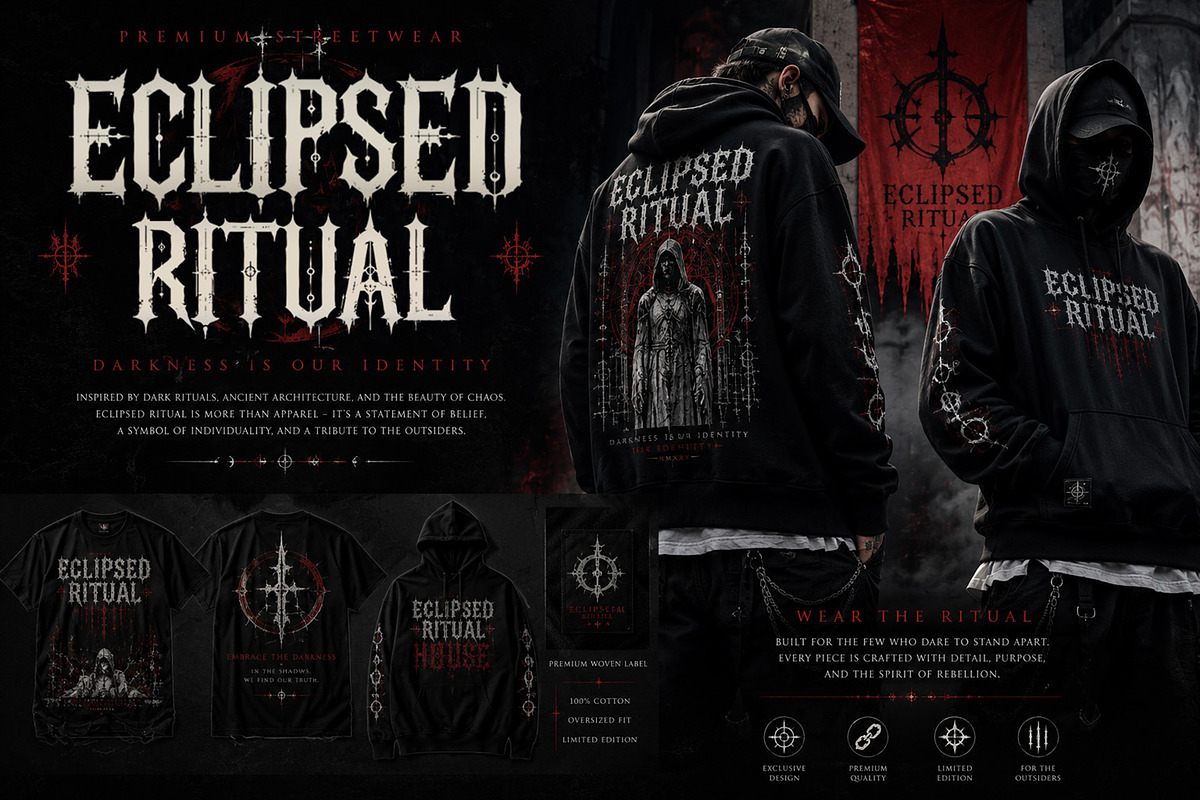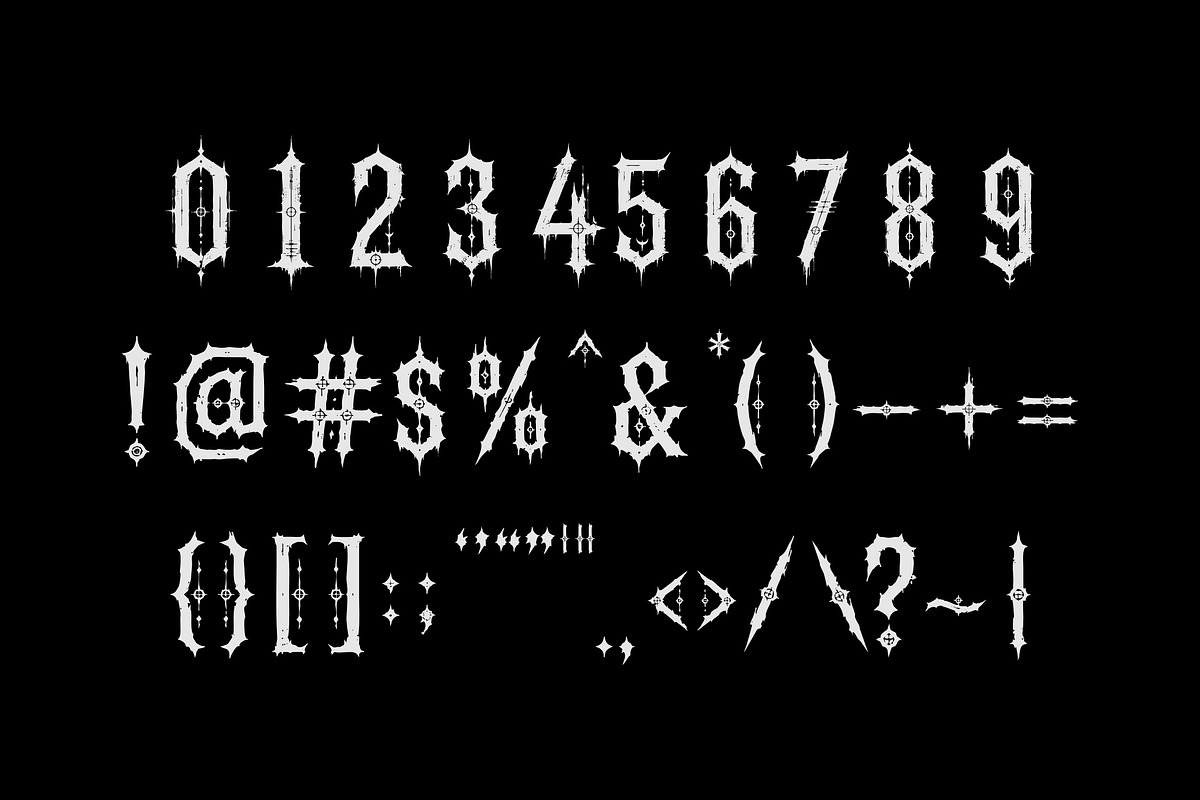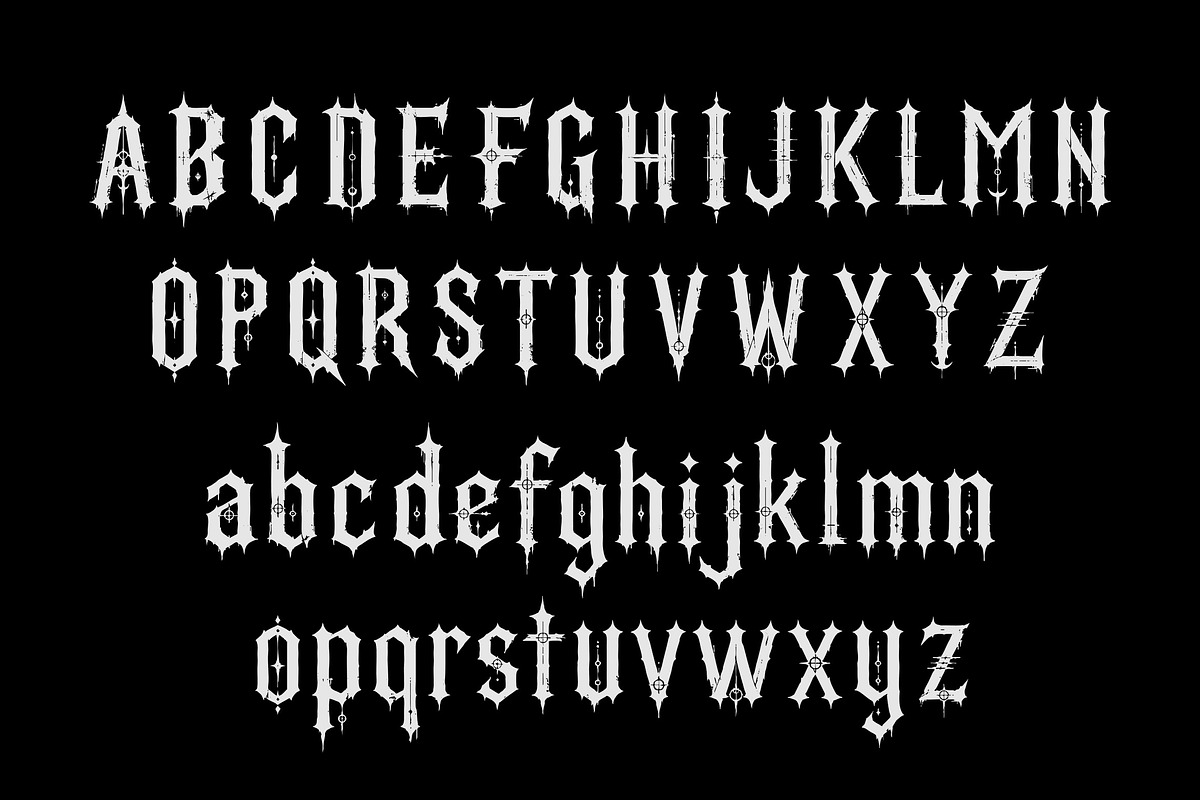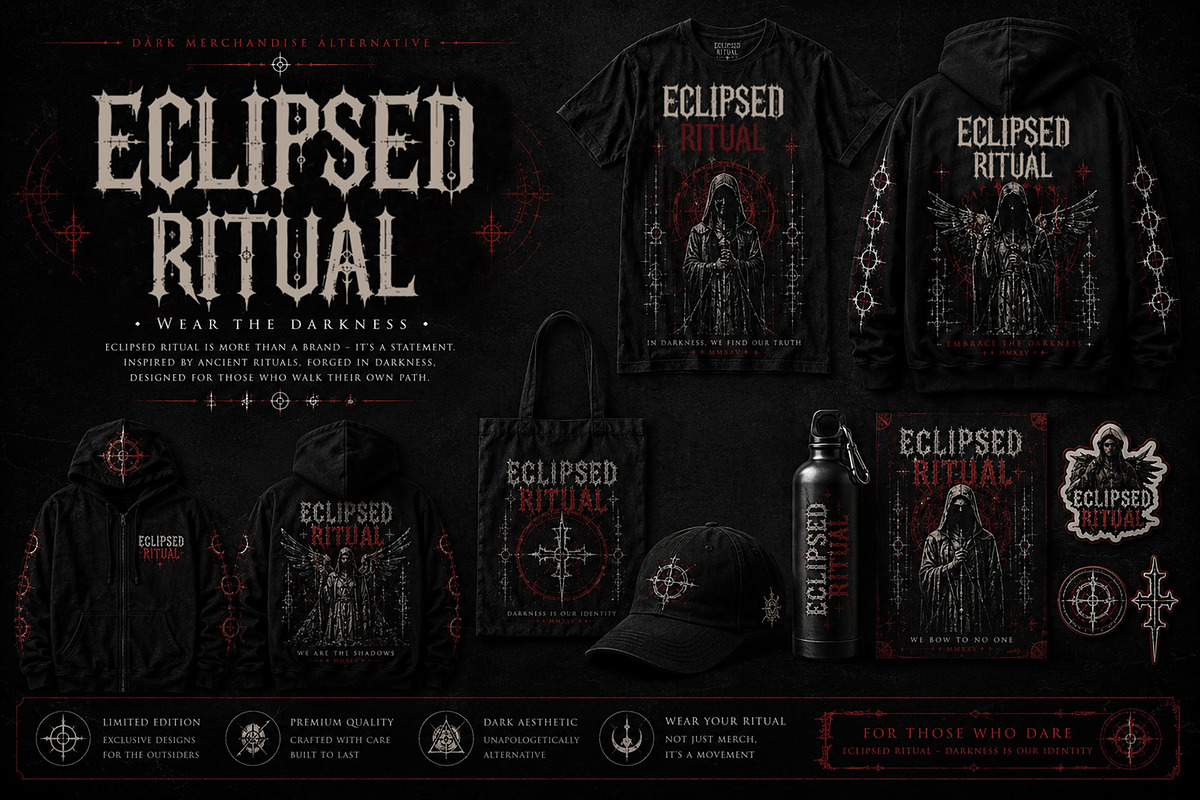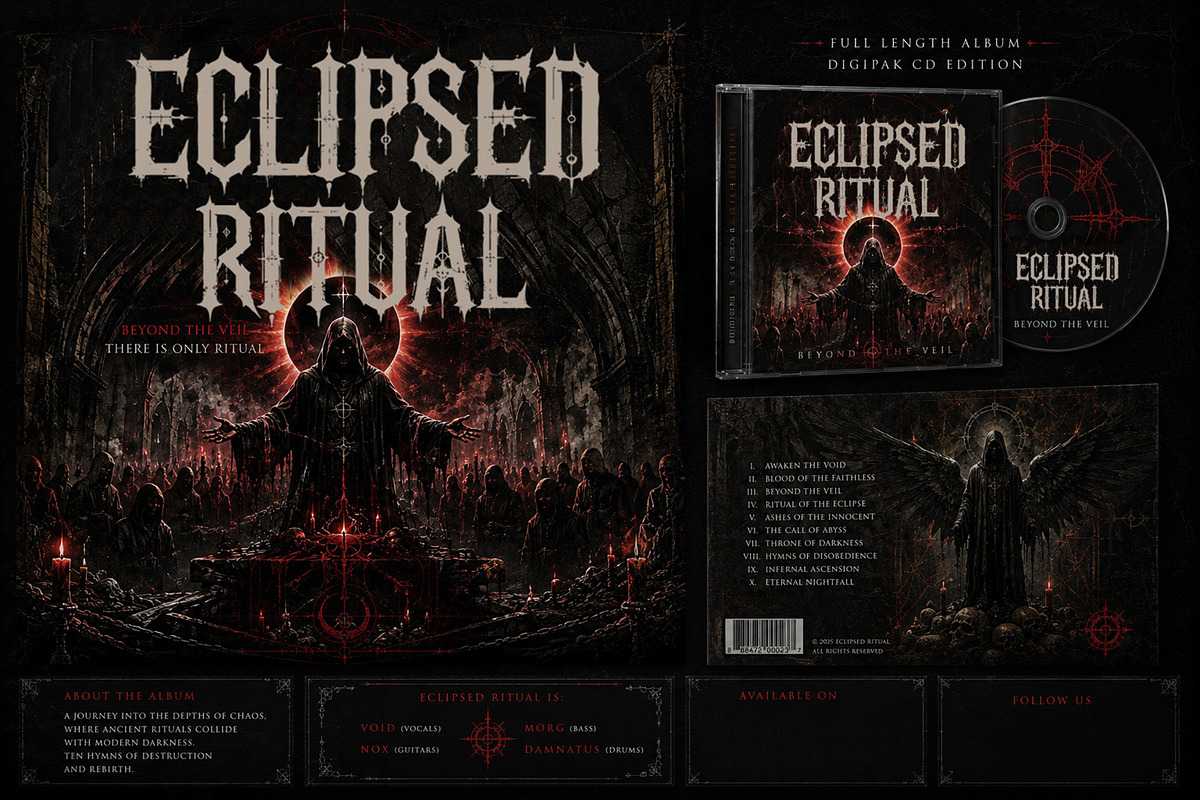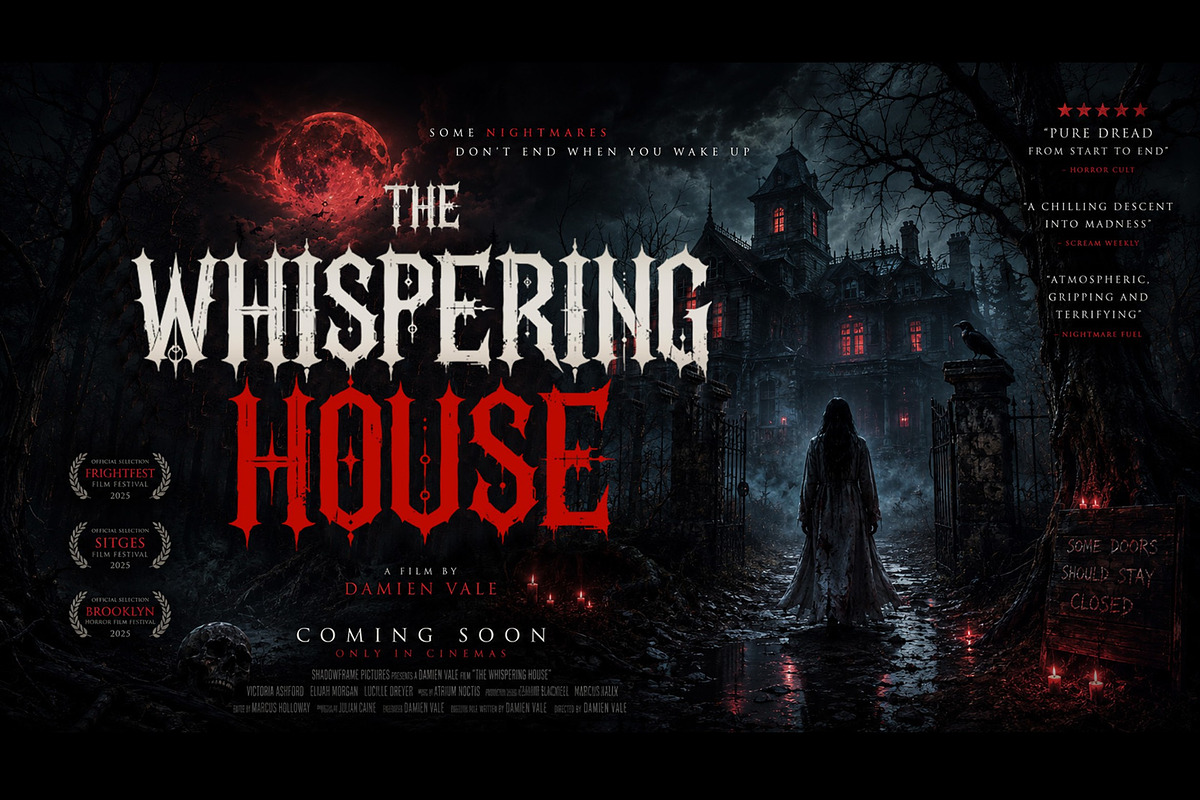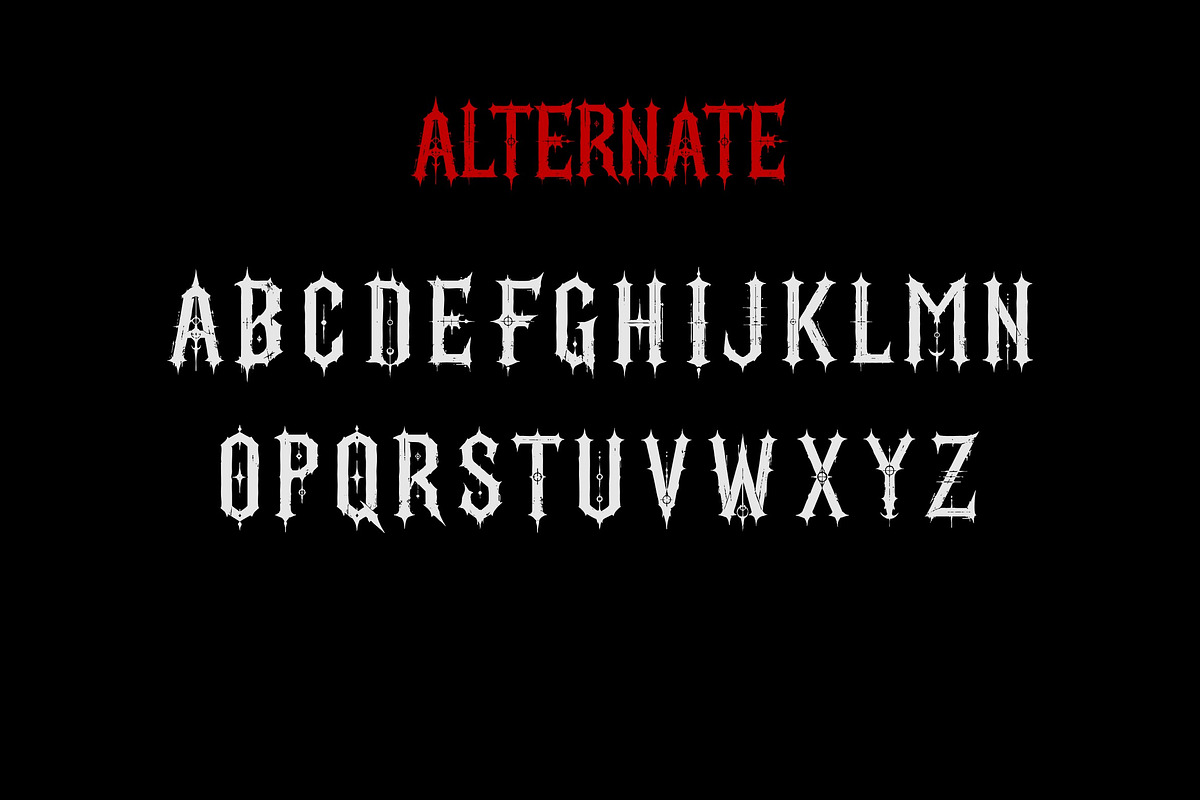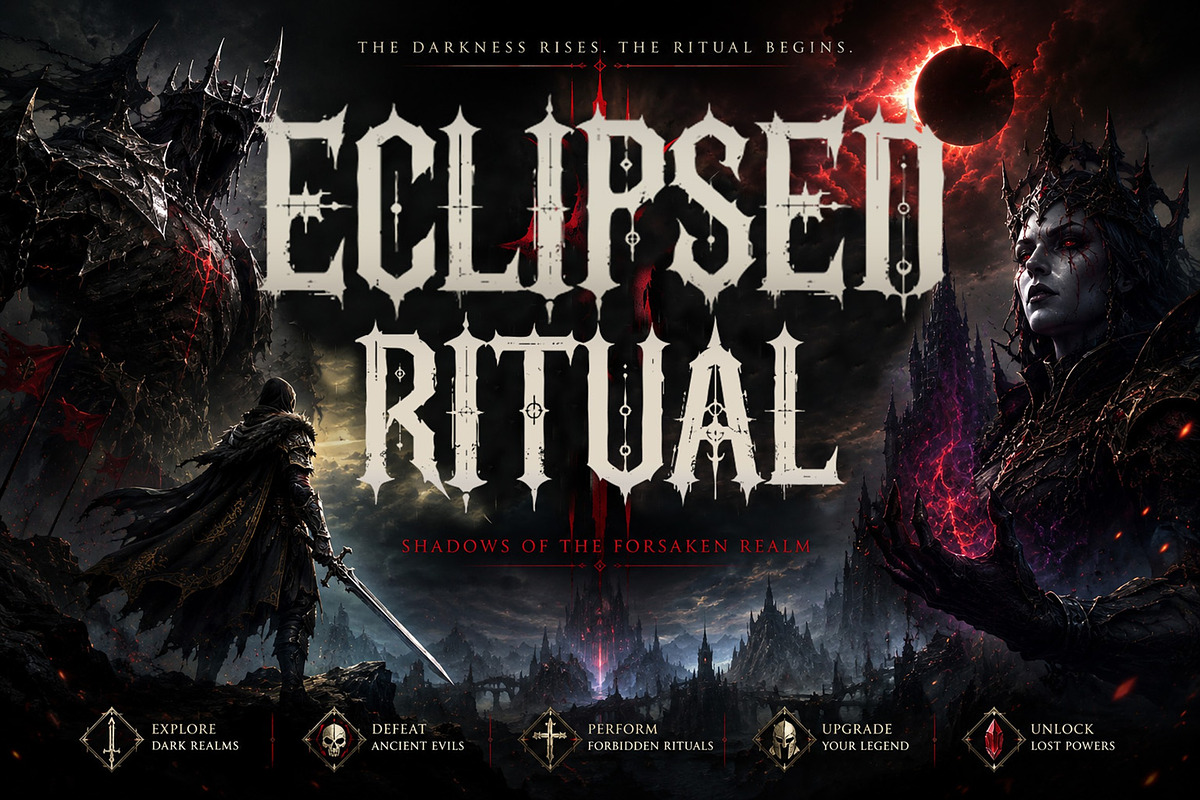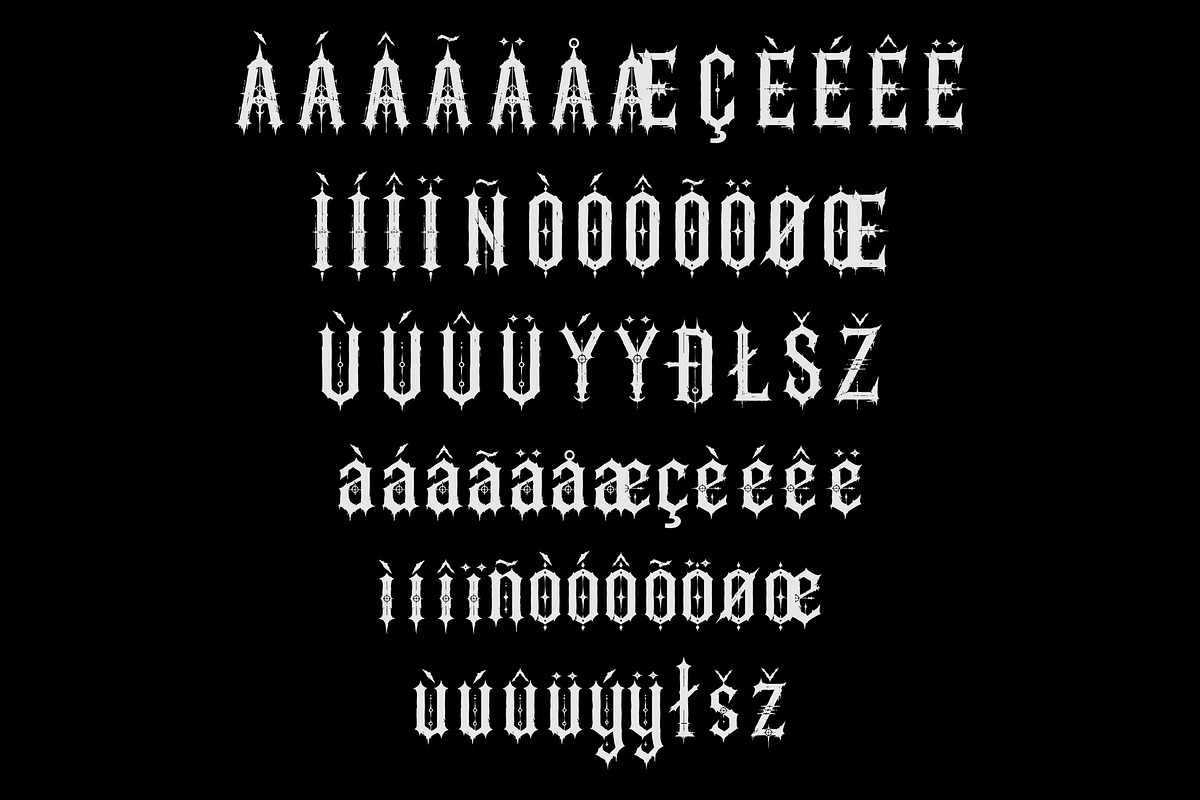
Eclipsed Ritual
Eclipsed Ritual is a dark gothic industrial display font forged from ritual symbolism, cathedral architecture, black metal aesthetics, and distressed industrial textures. Featuring razor-sharp forms, occult-inspired details, and dramatic silhouettes, this typeface is designed for album artwork, horror branding, dark fantasy, gaming, posters, book covers, and cinematic titles. Built to command attention while maintaining a bold, unforgettable visual identity.